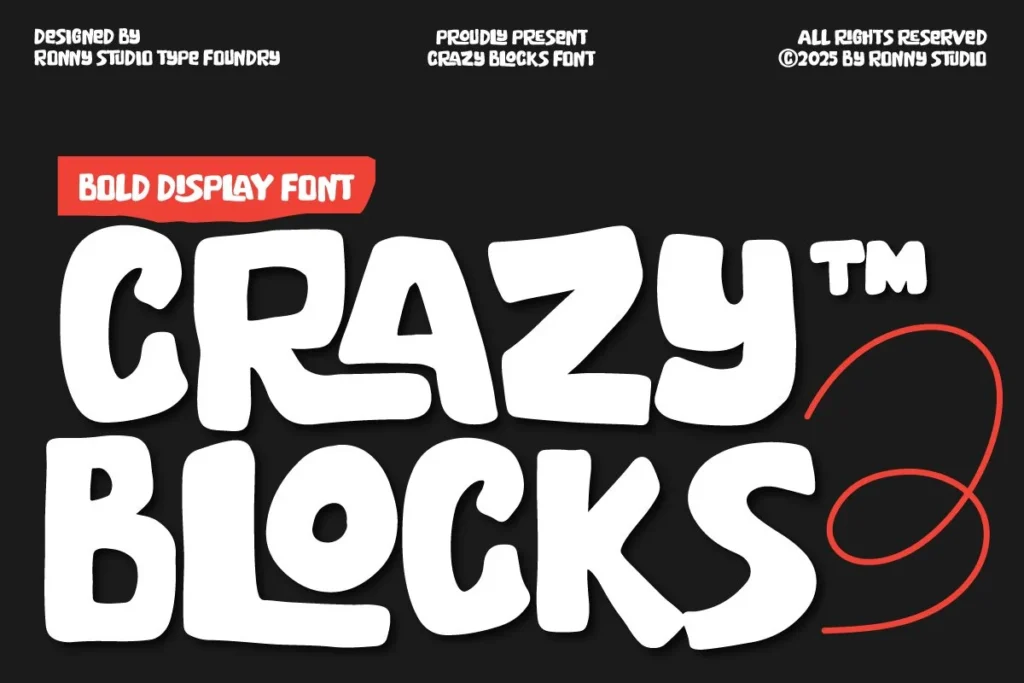
Font Showcase: Crazy Blocks — Bold Playfulness in Type
Crazy Blocks bold display font playful block typeface for logo, poster, headline, and creative design
The Power of Play in Typography
Typography doesn’t always need to be serious or elegant.
Sometimes, it should laugh, bounce, and dance across the screen. That’s where Crazy Blocks lives — a font designed to shout fun and confidence without losing balance.
In a design world full of minimalism and neutrality, Crazy Blocks dares to be loud. It’s bold, blocky, and unapologetically alive. Created by Ronny Studio, it celebrates creativity that doesn’t fit into grids or rigid corporate lines.
Crazy Blocks is not just a font — it’s a statement that design can be playful and professional.
The Story Behind Crazy Blocks
Every Ronny Studio font starts with a story, and Crazy Blocks began as a sketch experiment between chaos and geometry.
Founder Rony Rizki Jaya explains:
“I wanted to make something that felt like building with Lego — structured, but still wild. Each block should feel like it could move, jump, or break the rules.”
The early inspiration came from retro pop posters, 90s video game titles, and thick graffiti lettering from urban signage. The goal was to capture that nostalgic vibe while keeping it relevant for modern branding — turning retro visual weight into something fresh and flexible.
After several prototypes, the design found its balance:
• Square corners that evoke stability
• Rounded edges that soften the impact
• Tight kerning that keeps words compact and strong
The result: a font that radiates energy while maintaining visual discipline — a perfect example of Ronny Studio’s philosophy: wild design, controlled structure.
Font Personality: Confident, Playful, and Versatile
Crazy Blocks sits at the intersection of fun and functionality.
Its chunky forms make it ideal for high-visibility projects — anything that needs instant attention — yet the consistent geometry allows it to remain readable even at smaller scales.
Core Traits
• Bold & Confident — thick lines dominate space, commanding visual hierarchy.
• Rounded Geometry — soft corners make it approachable and friendly.
• Compact Spacing — optimized kerning keeps words solid and unified.
• Retro-Modern Fusion — inspired by old-school design, refined for contemporary brands.
You can imagine Crazy Blocks on a candy package, a gaming logo, or a streetwear tag — anywhere energy and confidence matter more than subtlety.
Behind the Design: From Sketchbook to Vector
Crazy Blocks started as a series of hand-drawn experiments on paper.
Instead of working digitally first, Rony used markers and grid notebooks, drawing random geometric shapes that could evolve into potential characters.
Once the sketches felt right, the letters were rebuilt digitally in Adobe Illustrator, focusing on consistent stroke weight and modular block systems.
Each letter was then adjusted manually — no automatic symmetry. The goal wasn’t perfection but personality.
After that, the vectors were imported into Fontself, where spacing, kerning pairs, and alternates were refined one by one.
This hand-tuned process is why the final font feels “alive.”
Every letter looks like it’s part of a rhythm — especially in words with repeating shapes (“BOOM,” “BLOCK,” “PLAY”).
Use Cases: Where Crazy Blocks Shines
1. Logo Design
If you need your logo to pop instantly, Crazy Blocks delivers.
It transforms short brand names into bold visual icons. Its strong verticals make it perfect for tech, snack, or gaming brands that want a dynamic look.
💡 Tip: Use uppercase for stronger impact and pair it with minimal sans-serif for taglines.
2. Posters and Flyers
Crazy Blocks was born for big headlines.
It fills space confidently without feeling heavy. Great for event posters, street festivals, or online campaigns that need attention-grabbing typography.
3. Packaging Design
Whether it’s a soda can, candy wrapper, or streetwear label — the thick, cheerful shapes stand out beautifully against bright or pastel backgrounds.
Pair Crazy Blocks with vibrant color palettes like:
• Red & Yellow (playful energy)
• Blue & White (clean modern feel)
• Pink & Black (retro contrast)
4. Social Media Graphics
Short quotes, sale banners, or product titles come alive with Crazy Blocks.
Its playful tone performs well in square compositions, especially for Instagram and TikTok visuals where bold text is king.
Style Pairing Tips
Even a strong display font needs a partner to balance it.
Here’s how to use Crazy Blocks effectively in real-world layouts:
Element Recommended Font Type
Logo / Title Crazy Blocks
Subheadline Modern Sans Serif (e.g., Inter, Poppins)
Body Text Clean Sans (Open Sans, Helvetica Neue)
It’s the font equivalent of laughter in design — expressive, fearless, and full of rhythm. Whether you’re building a streetwear label, launching a snack brand, or designing for youth culture, Crazy Blocks adds life and character to your visuals.
Typography is emotion, and Crazy Blocks speaks with a grin.